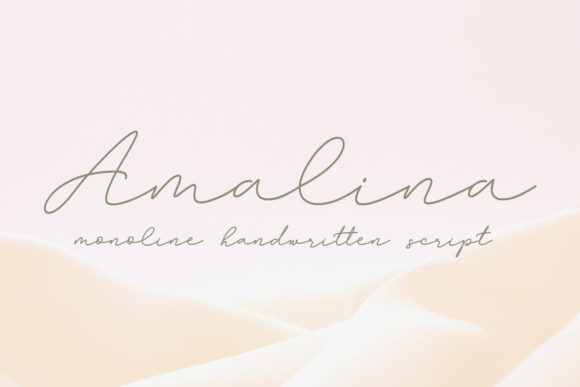
Unleash the Splendor of Amalina: A Script Font That Captivates Hearts
Step into a world of boundless creativity with Amalina, a script font that effortlessly blends sophistication and whimsy. Let your imagination run free as you craft enchanting designs with this modern masterpiece. Amalina's exquisite letterforms dance across the page, leaving a trail of timeless elegance in their wake. Explore the myriad possibilities and transform your digital dreams into breathtaking realities.
With Amalina as your creative companion, crafting projects take on a new level of artistry. Its fresh and vibrant spirit breathes life into every design, adding a touch of magic to your invitations, logos, branding materials, and social media posts. Whether you're a seasoned designer or just starting your creative journey, Amalina's user-friendly nature makes it a joy to work with.
Immerse yourself in the beauty of Amalina's meticulously crafted characters. Each stroke and curve has been lovingly designed to evoke a sense of wonder and enchantment. Its modern aesthetic seamlessly blends with a timeless charm, making it the perfect choice for projects that demand a touch of sophistication.
Unlock the full potential of your creativity and embark on a journey of self-expression with Amalina. This remarkable script font awaits you, ready to ignite your passion and transform your digital creations into masterpieces that leave an unforgettable impression. Don't resist the allure of Amalina—let it be the catalyst for your next creative triumph.